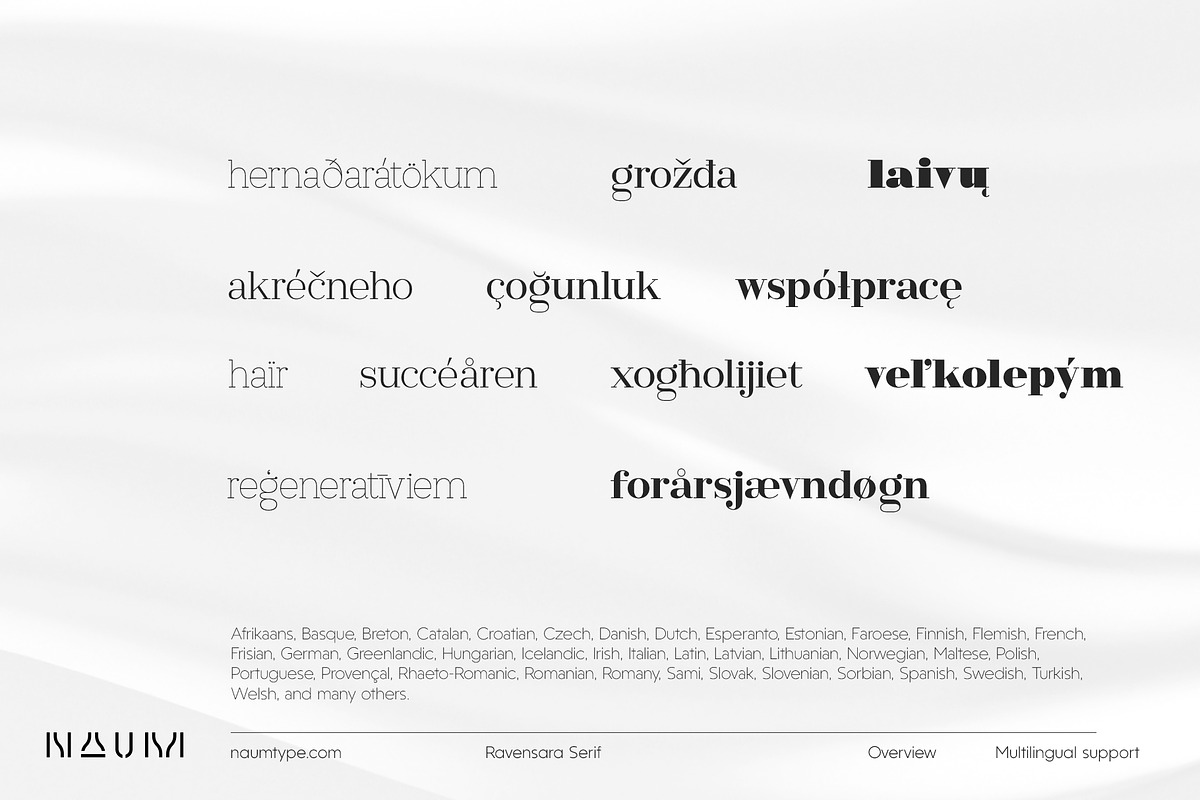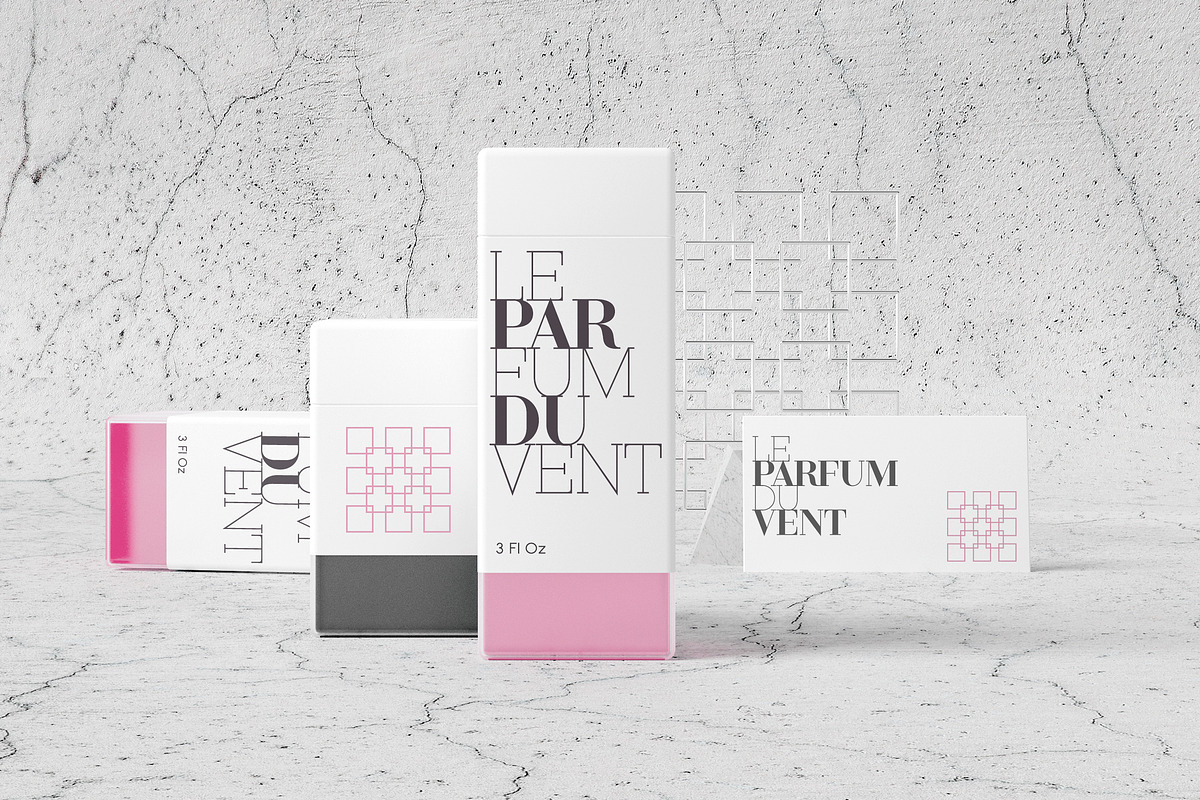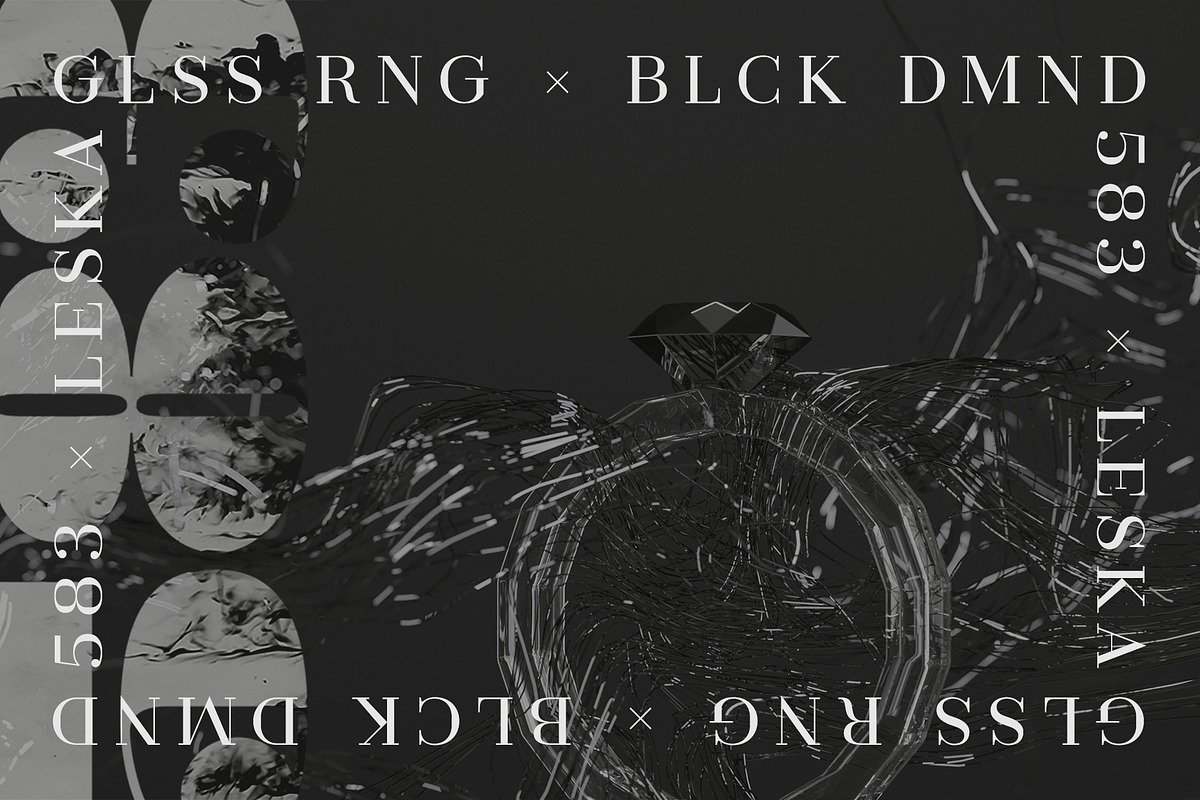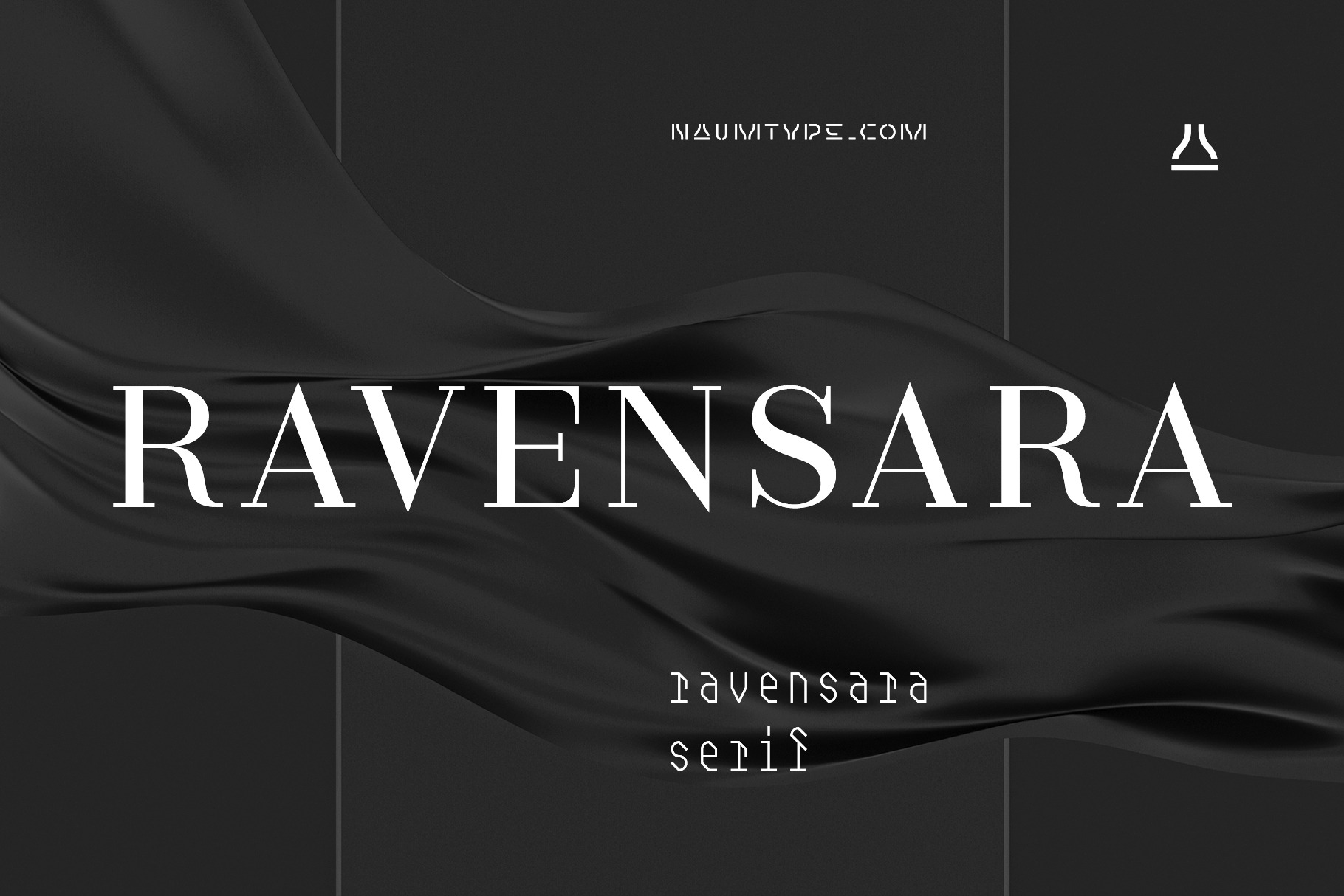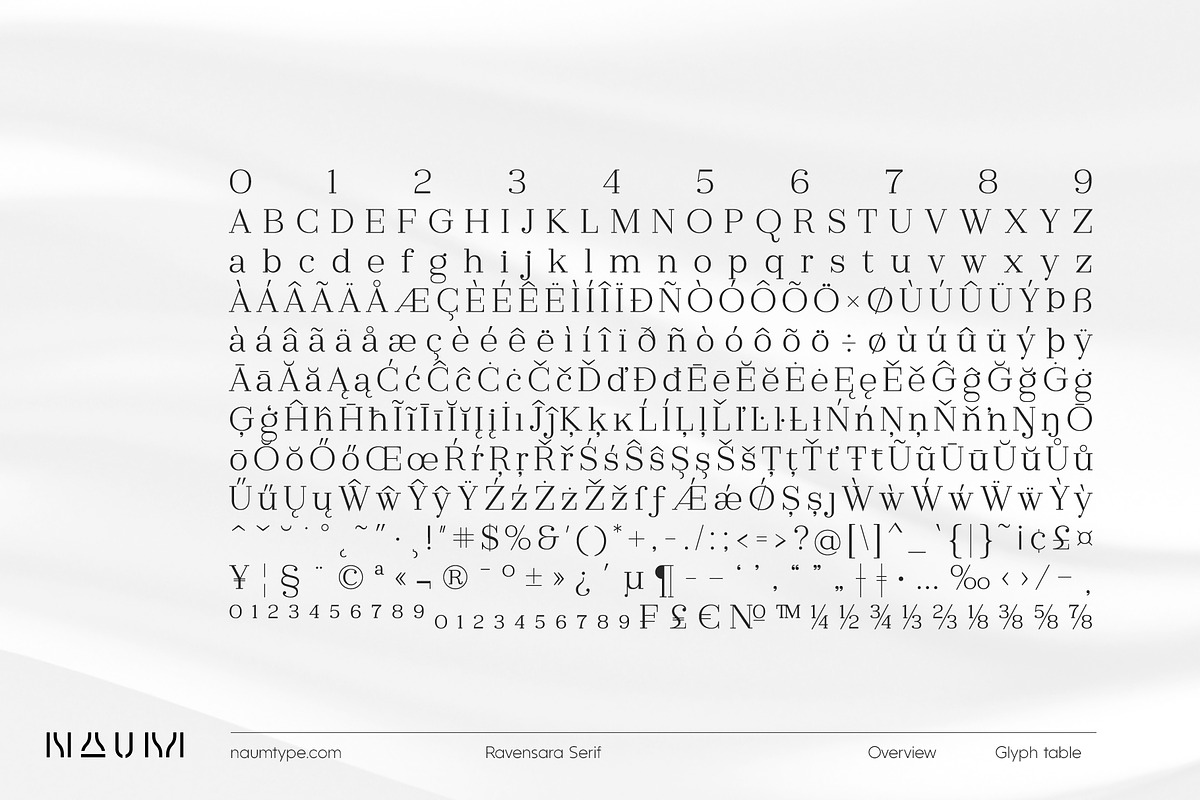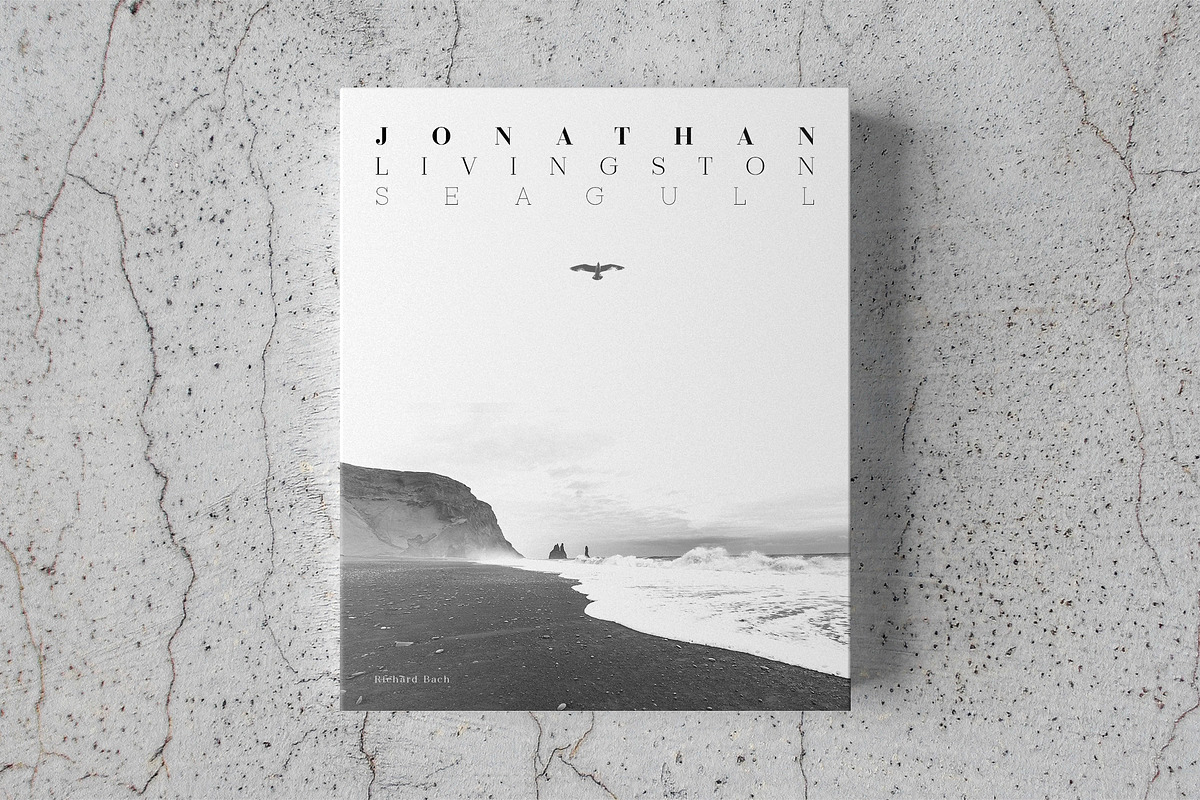
Ravensara Serif | 7 fonts
Ravensara Serif - elegant high contrast classic serif.
The style of the font originates in a classic Didone but took a step to simplify some letterforms and make Didone feel more contemporary.
Ravensara Serif is available in 7 weights, including Thin, Light, Regular, Medium, SemiBold, Bold, and Black.
Ravensara Serif, despite its ancient roots and due to simplified and smoothed forms, can be used in a variety of different styles. It’s a perfect choice for bold headlines, oversize typography, fashion logos, branding, identity, website design, album art, covers, posters, advertising, etc.
- 390 glyphs
- 7 weights
- 3526 kerning pairs
Languages Supported: Latin Extended-A (Western and Central European languages)